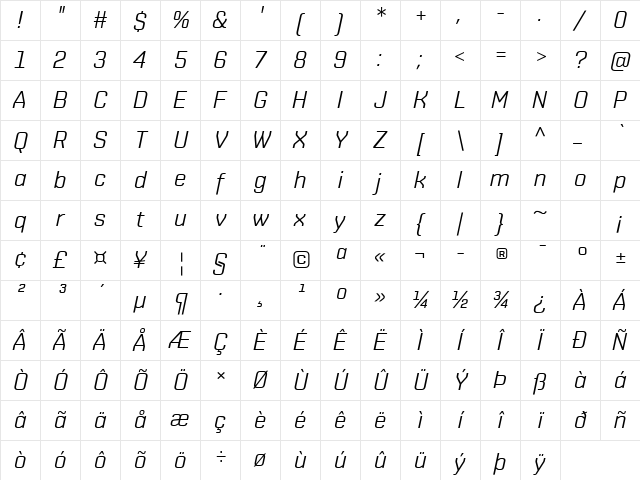
Shentox 4 Regular
Foundry: Eduardo Manso
Designer: Eduardo Manso
Design Context for Shentox 4
Shentox 4 is a composed and adaptable typeface that performs quietly and consistently across a wide range of design contexts.
Who designed the Shentox 4 Regular font?